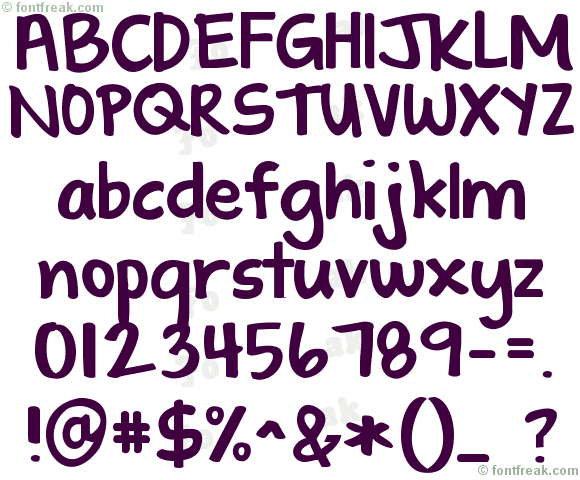
KG Shadow of the Day
About KG Shadow of the Day
KG Shadow of the Day by Kimberly Geswein is a captivating handwritten font that exudes a playful and informal charm. This display typeface features a unique blend of rounded strokes and a slightly irregular baseline, giving it a lively, hand-drawn appearance. The stroke weight is consistent, with a moderate contrast that adds depth without overwhelming the design. The spacing is generous, allowing for easy readability, making it a versatile choice for various applications.
This font shines in a multitude of contexts, particularly in wedding invitations where its whimsical flair can set a joyful tone. It also makes an excellent choice for children’s book covers, where its friendly and approachable style can engage young readers. Restaurant menus benefit from its casual yet appealing aesthetic, inviting diners to explore the offerings with enthusiasm. Additionally, it can serve well in promotional materials for creative businesses, such as art studios or craft shops, where a personal touch is desired.
KG Shadow of the Day appeals to a diverse audience, including graphic designers looking to add a touch of personality to their projects, small business owners aiming to create inviting branding, and content creators seeking a font that embodies a friendly and approachable vibe.
What sets the KG Shadow of the Day font apart is its ability to convey warmth and creativity through its distinctive handwritten style. This font not only enhances visual appeal but also fosters a connection with the audience. For those interested in incorporating this unique typeface into their designs, the KG Shadow of the Day font free download offers an accessible opportunity to elevate any project with its charming character and engaging aesthetic.